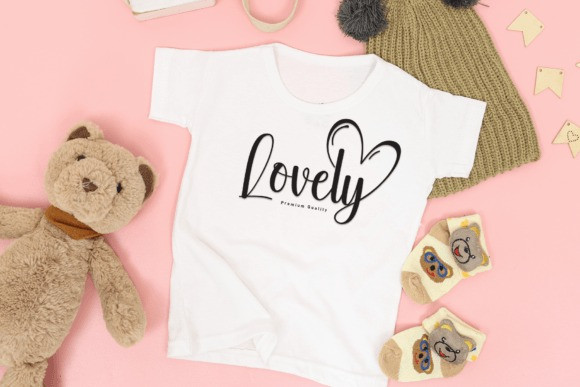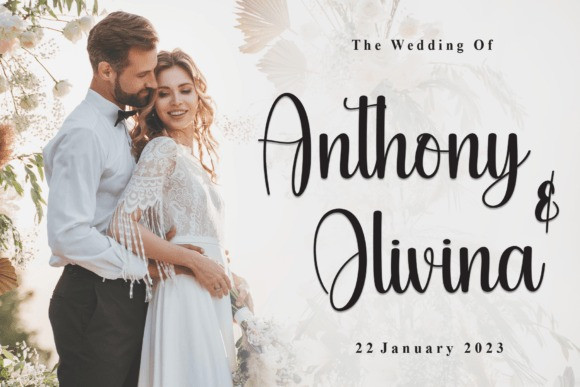
Deary February Font
Deary February Font is a sweet and delicate handwritten font. Dainty and joyful, this font will be ideal for writing wedding invitations, cards, or any other design that may need a romantic, personalized touch!